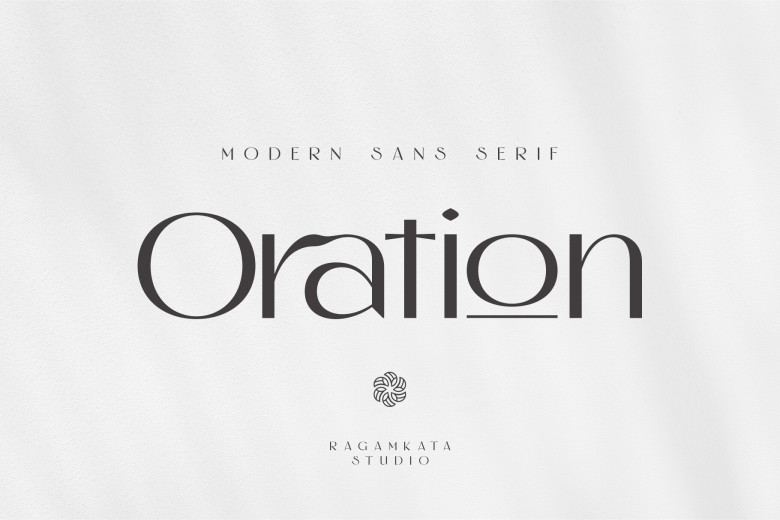
Oration Font
Oration is an elegant sans serif font with a modern aesthetic, ideal for headlines, logos and signage applications as well as labels, invitations, magazines logos books greeting cards wedding or wedding invitation packaging fashion makeup stationery labels novel or any advertising use.
Oration Sans Serif Font